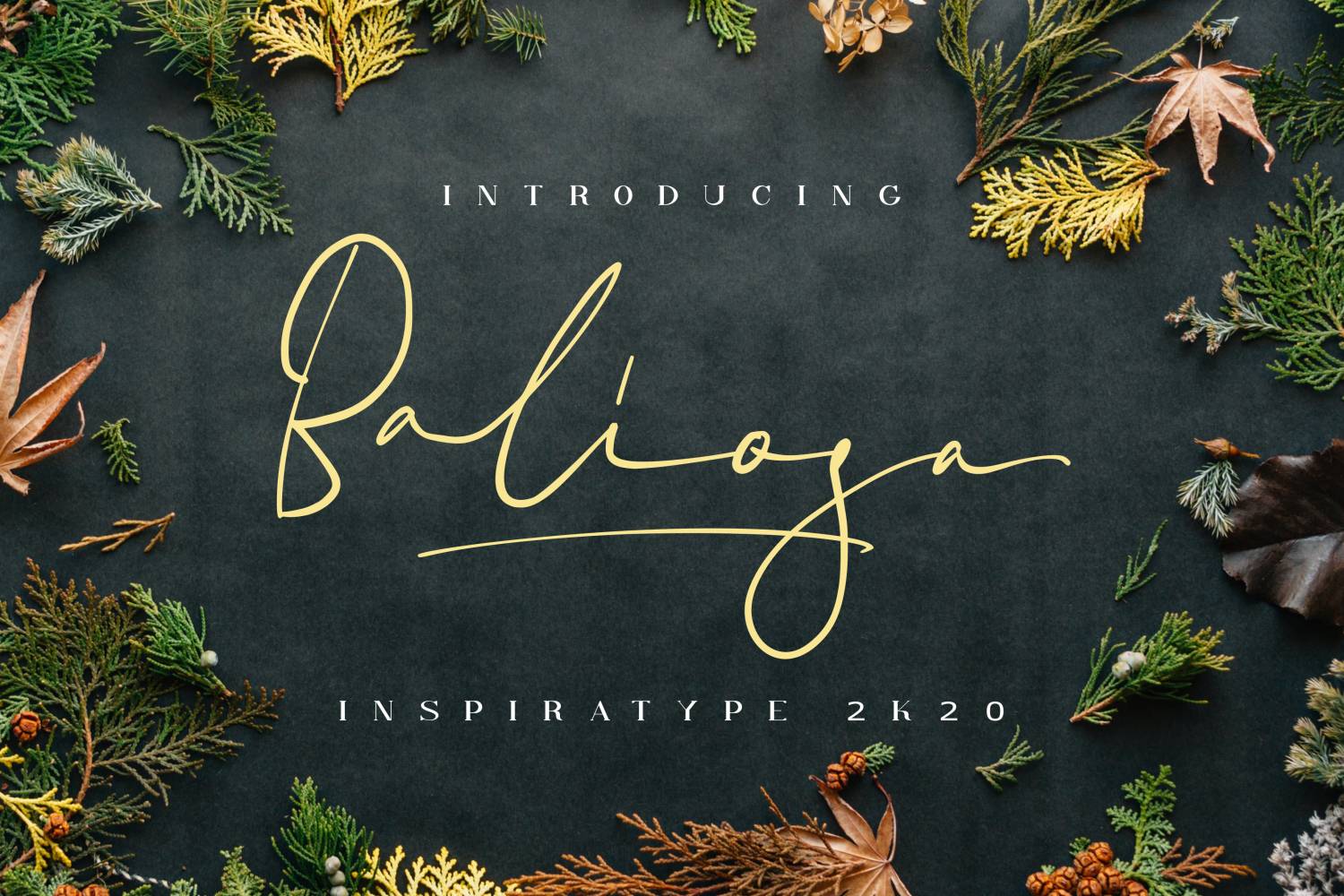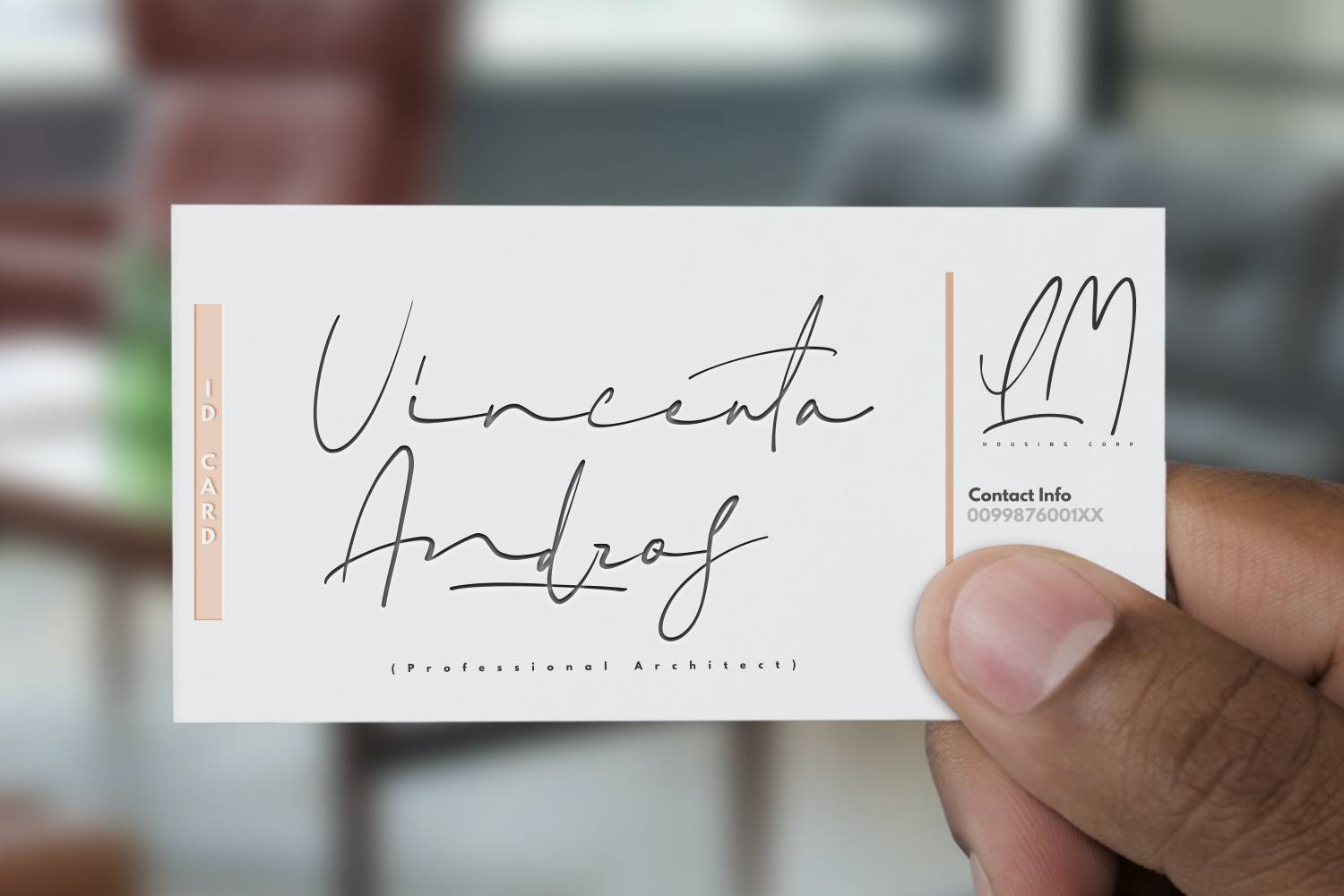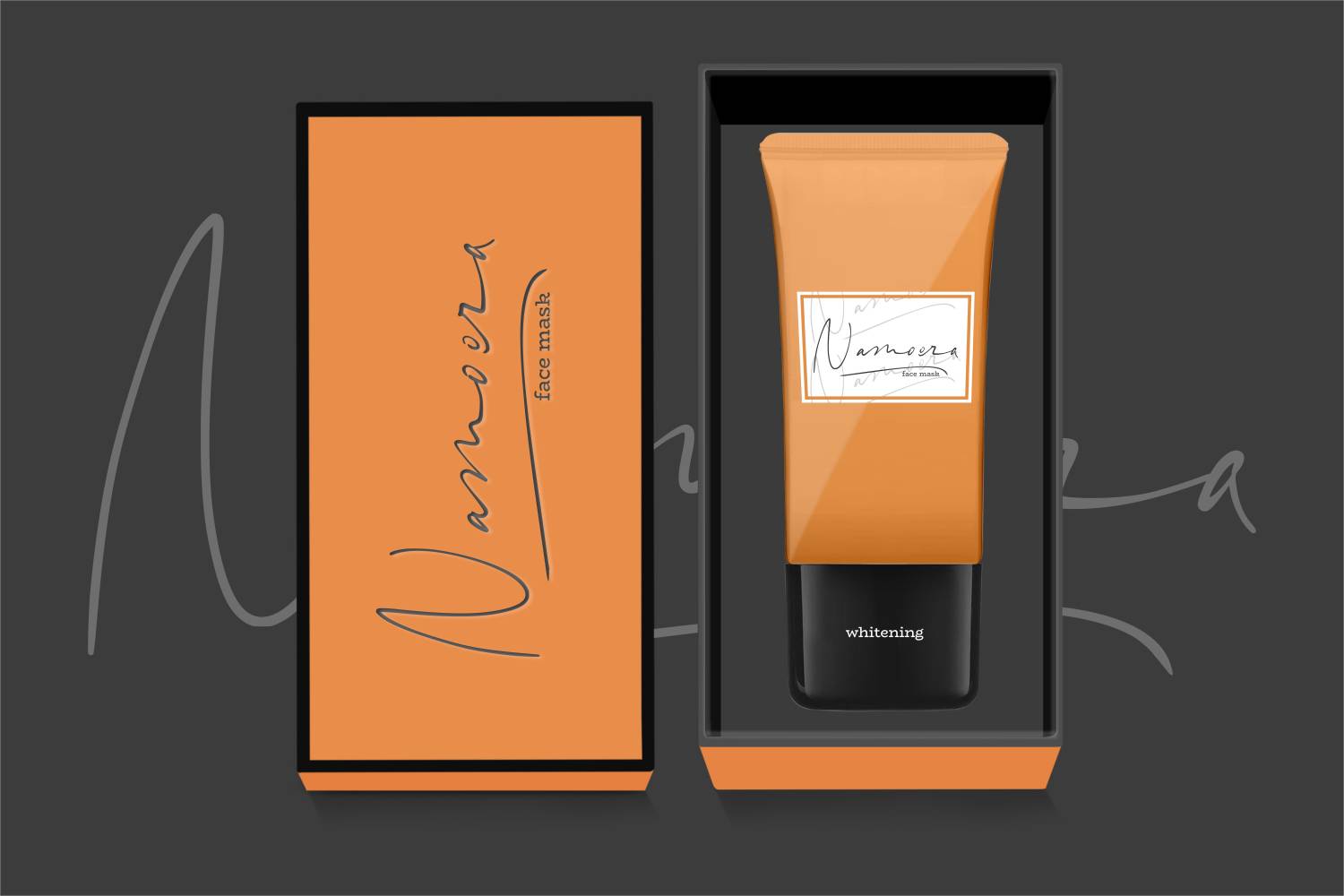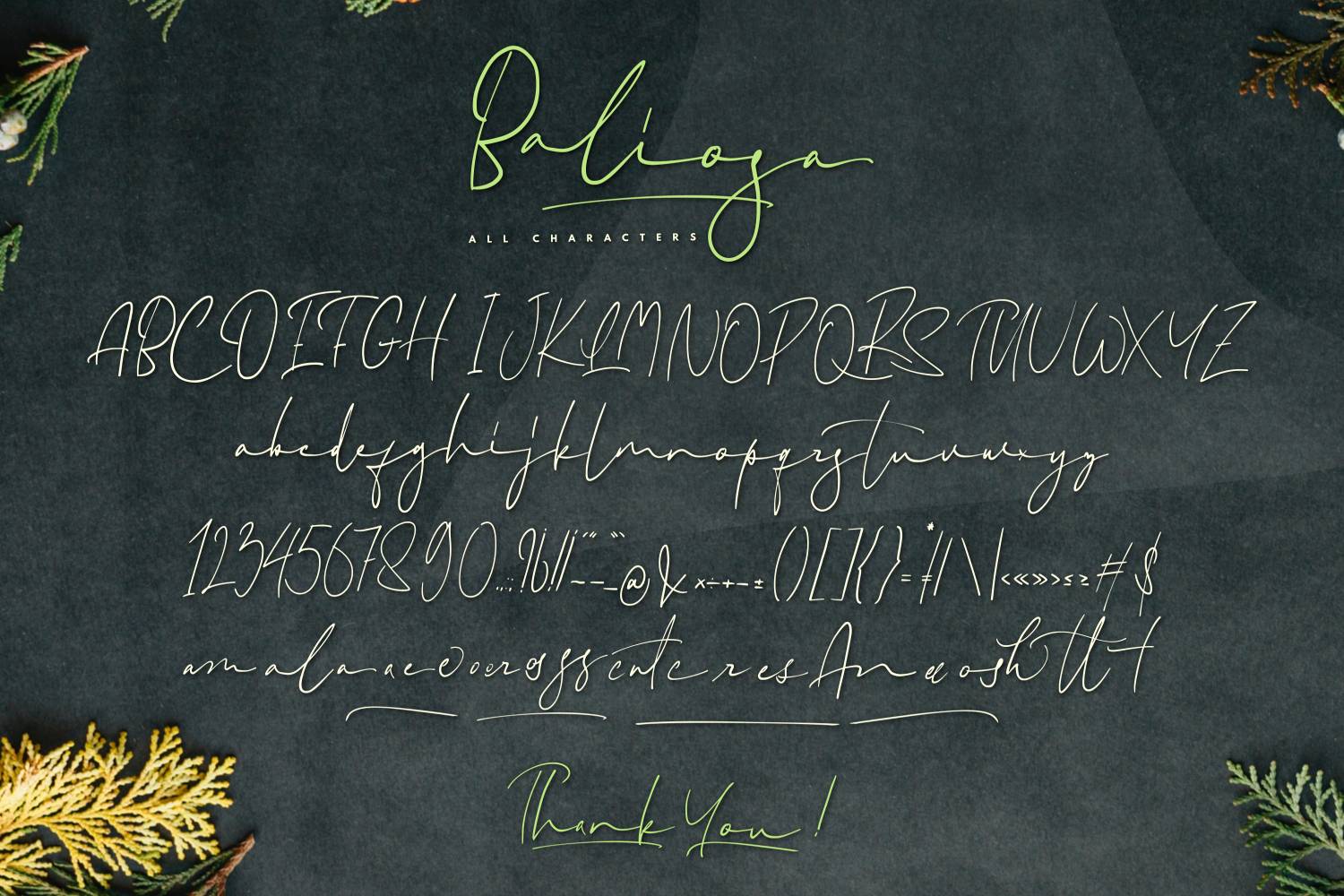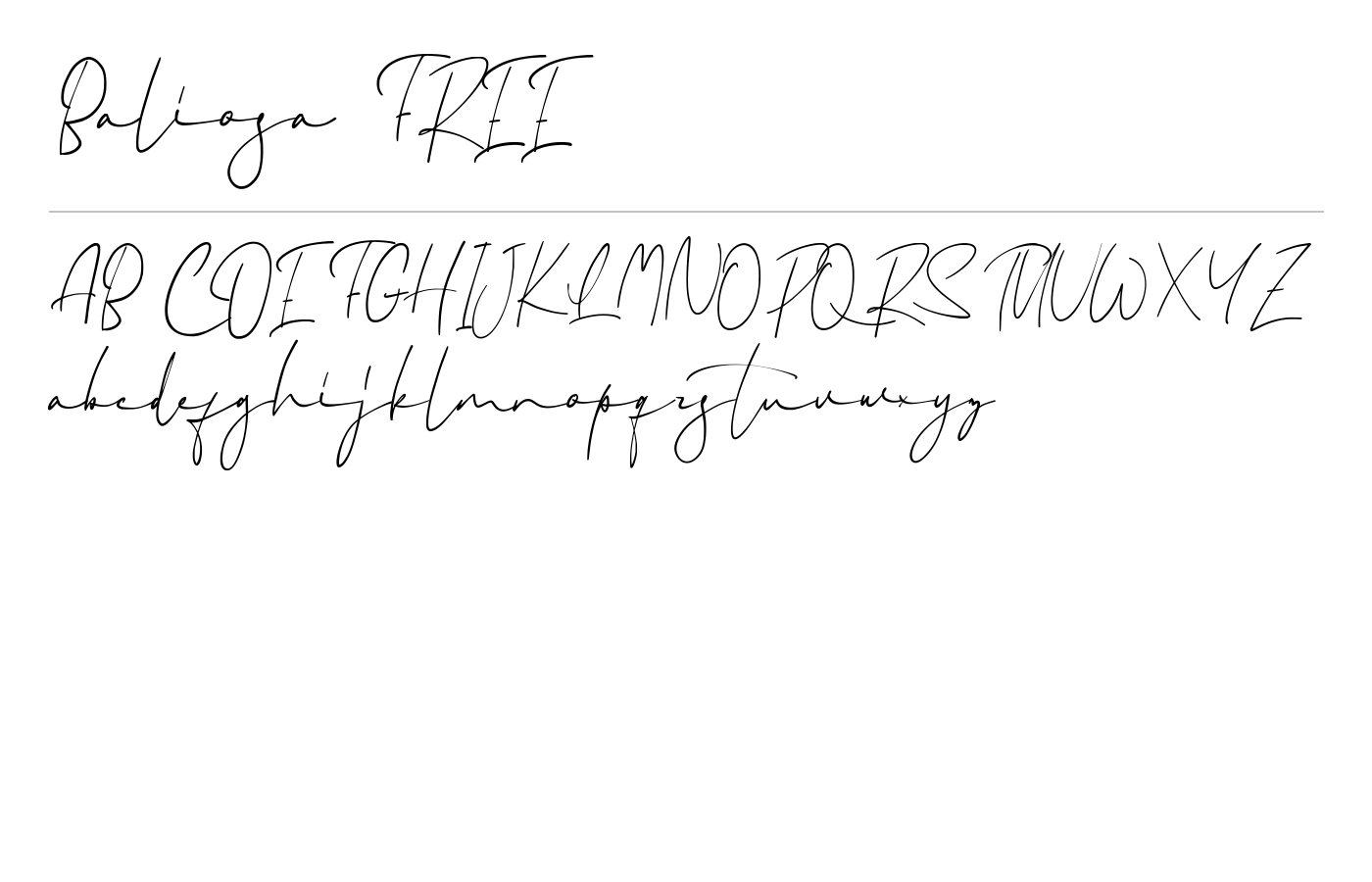
Baliosa is a delicate, handwritten script font characterized by its thin, elegant strokes and graceful, flowing letterforms. Its light weight and airy style evoke a sense of sophistication and creativity, making it ideal for personal branding, wedding invites, and artistic projects that seek a refined yet approachable look. This font works beautifully in designs that want to convey elegance and a personal touch without sacrificing readability.
Baliosa Font
About Baliosa Font
| Font family | Baliosa Font |
| Designer | Inspiratype |